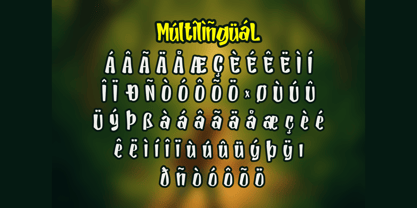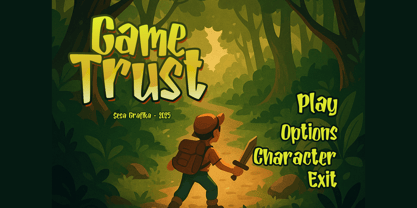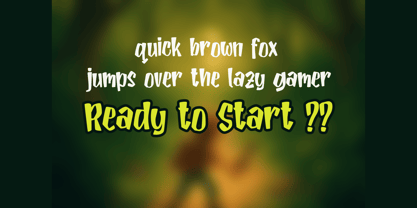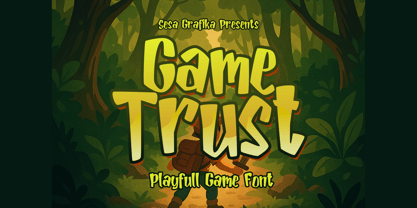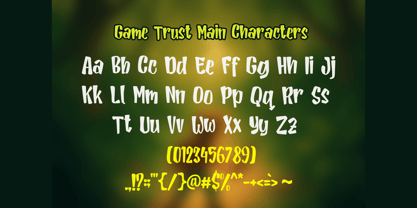
Game Trust
by Sesa Grafika
The Game Trust Font Family was designed by Wisesa Purba Giandar and published by Sesa Grafika. Game Trust contains 1 styles.
Game Trust is a bold and fun display font perfect for game titles, children’s books, adventure-themed projects, or any design that needs a playful and adventurous feel. Inspired by classic game aesthetics and cartoon styles, this font brings a dynamic energy to your work with its thick strokes, quirky shapes, and adventurous vibe. Ideal for logos, posters, packaging, and more!
Whether you’re designing for a fantasy forest adventure or a kid-friendly mobile game, Game Trust is the font to bring your vision to life.